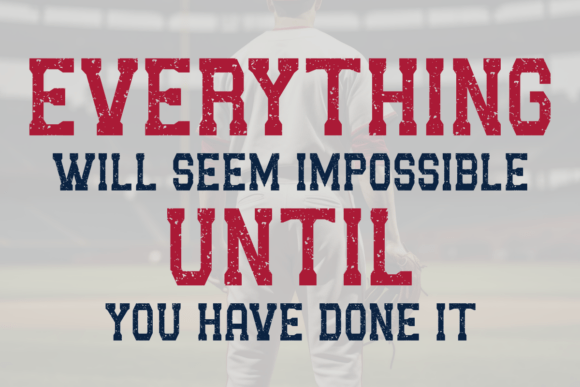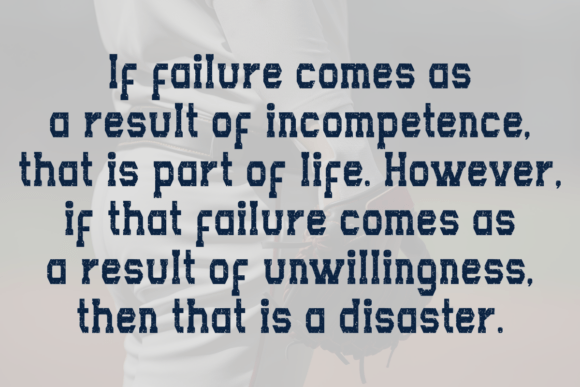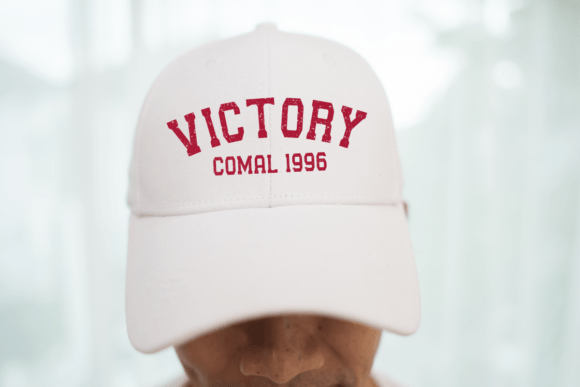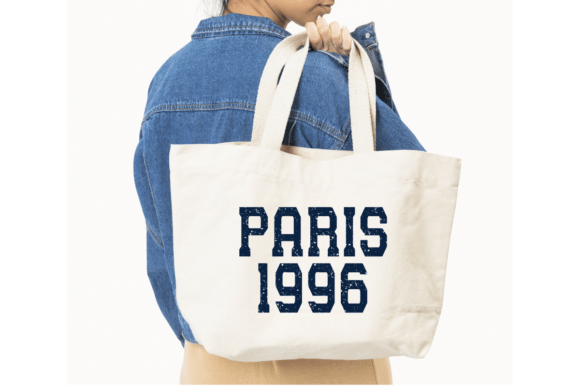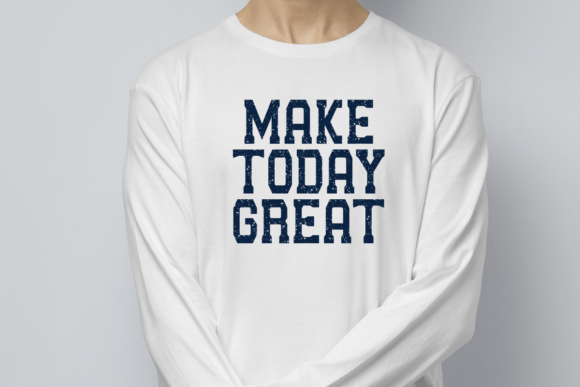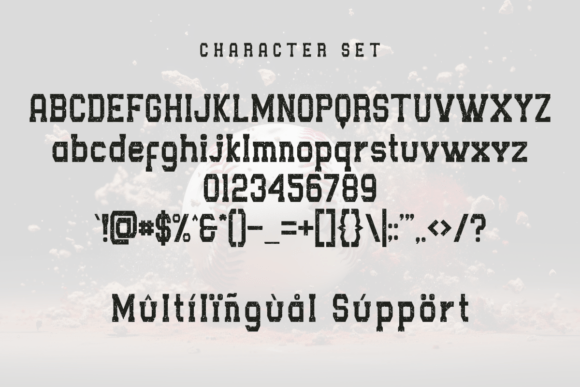
Introduction to Rough Dream Font
Rough Dream is a bold varsity-style font with a gritty, textured look that exudes strength and nostalgia.
Inspired by classic sports lettering and vintage athletic designs, this font is perfect for team logos, sportswear, posters, and event branding Its distressed texture adds an authentic, worn-in feel, making it great for projects that need a tough, competitive edge.
Key Features of Rough Dream Font